Jonas Type
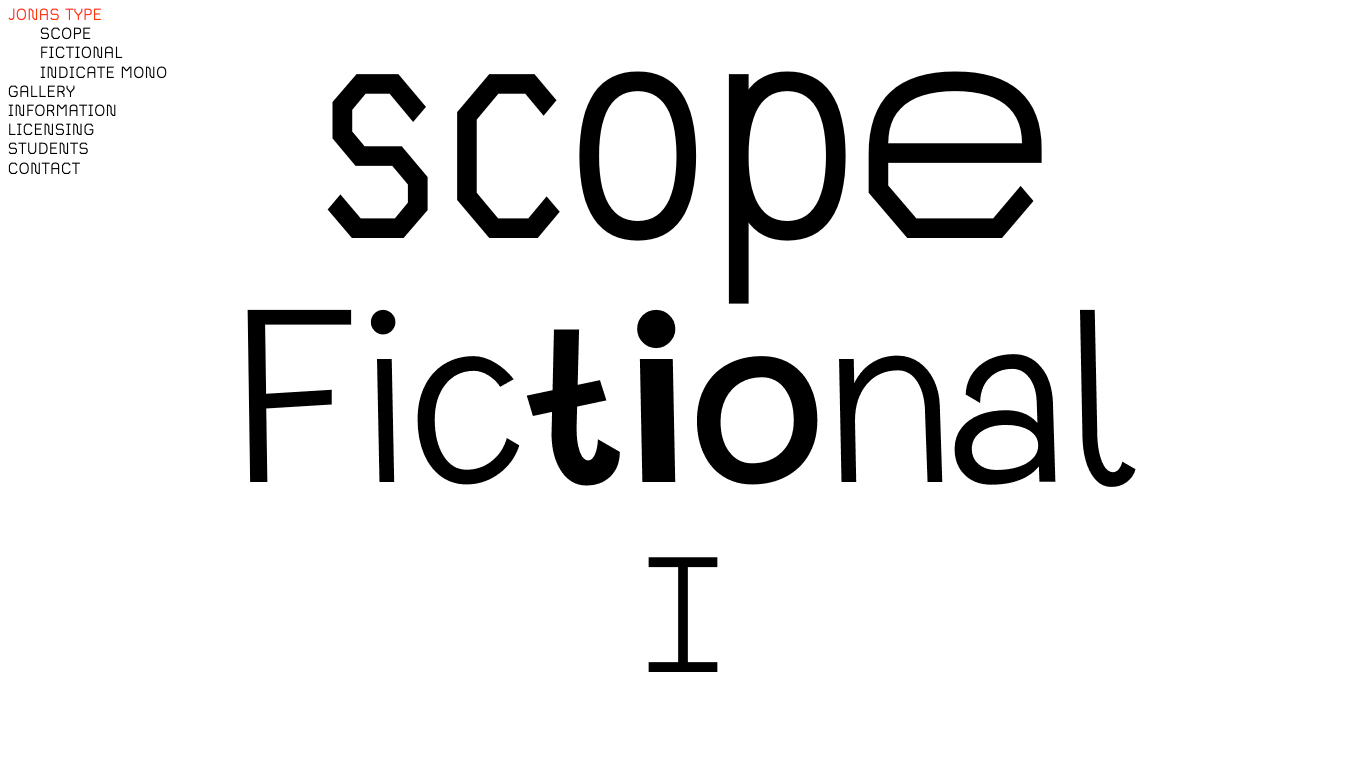
Germany
2021
Jonas Type is an independent type foundry based in Berlin, founded in 2021 by designer and developer Jonas Pelzer. Notable typefaces from Jonas Type include Scope (a versatile, semi-octagonal design), Fictional (a whimsical, cartoon-inspired typeface), and Indicate Mono (a precise, monospaced font for clear communication).